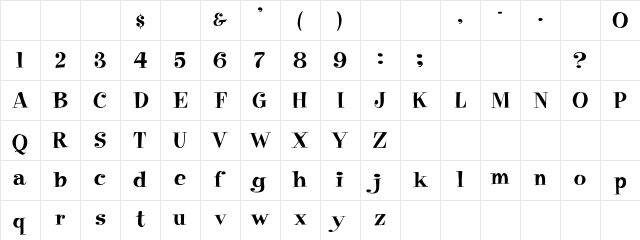
Pixie Regular Free Font
Pixie Regular
Design Context for Pixie
Pixie is a composed and adaptable typeface that performs quietly and consistently across a wide range of design contexts.
Pro Tip: Use Pixie in both headline and body roles to test its range before committing to a single application.